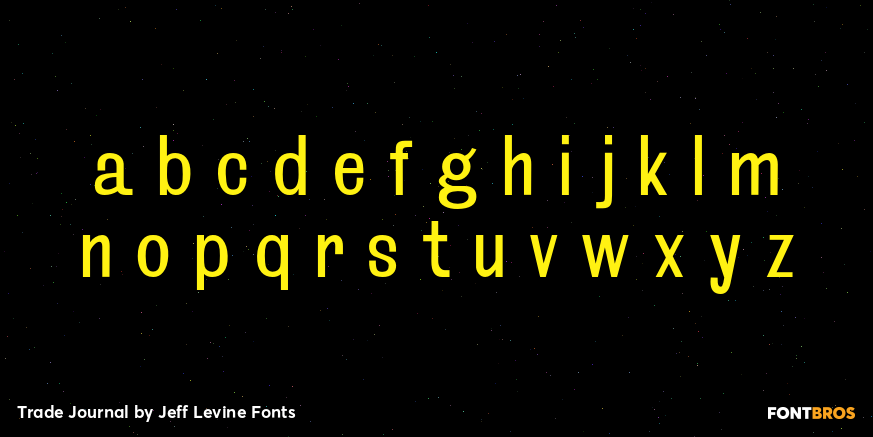
Trade Journal
Buy NowTrade Journal JNL and its oblique counterpart are derived from a classic grotesk sans face from the 1800s. Despite the 'grotesk' style name, the font design is actually quite pleasing to the eye and a nice alternative to many of the sterile sans serif faces of today.